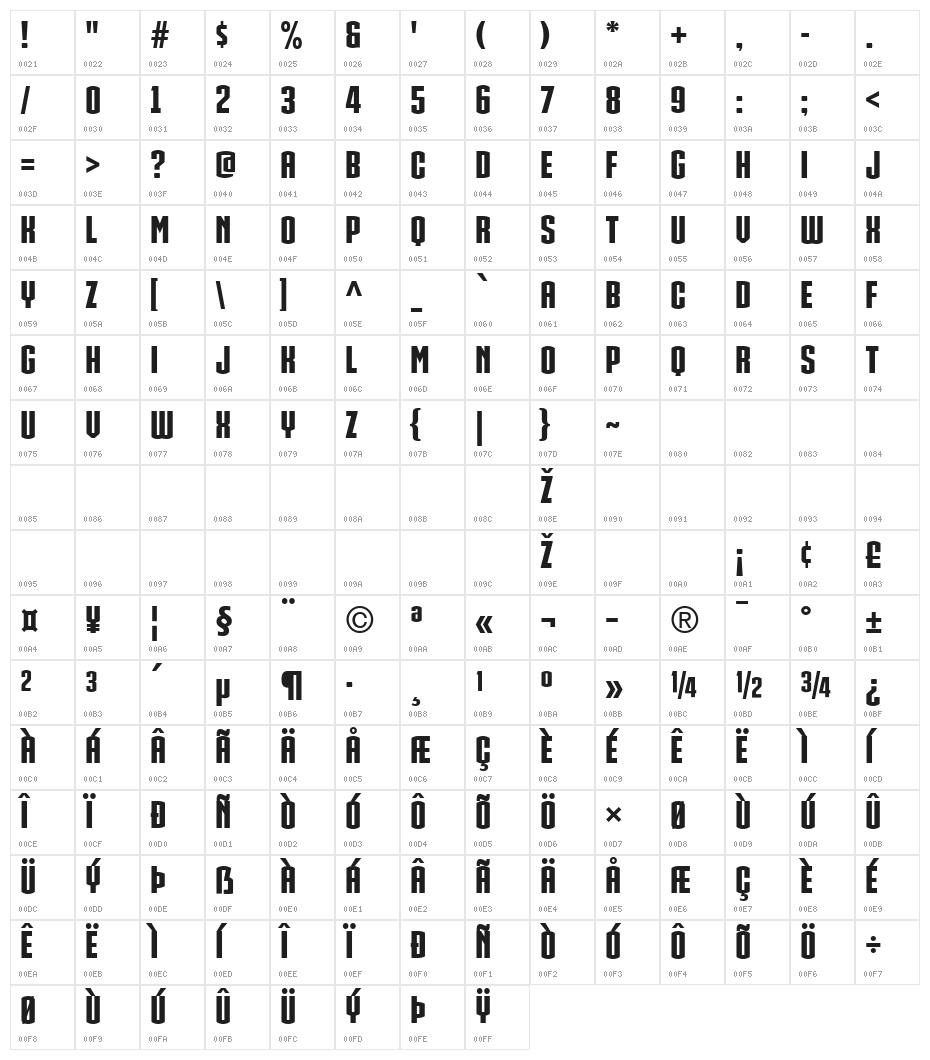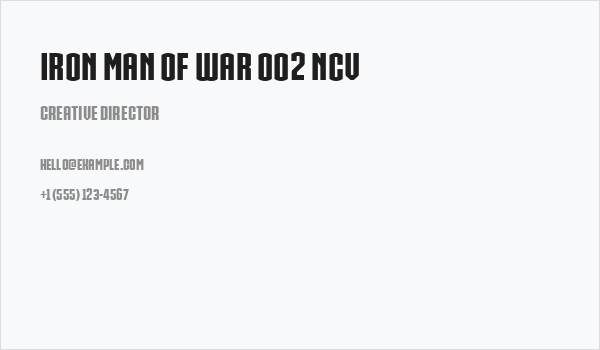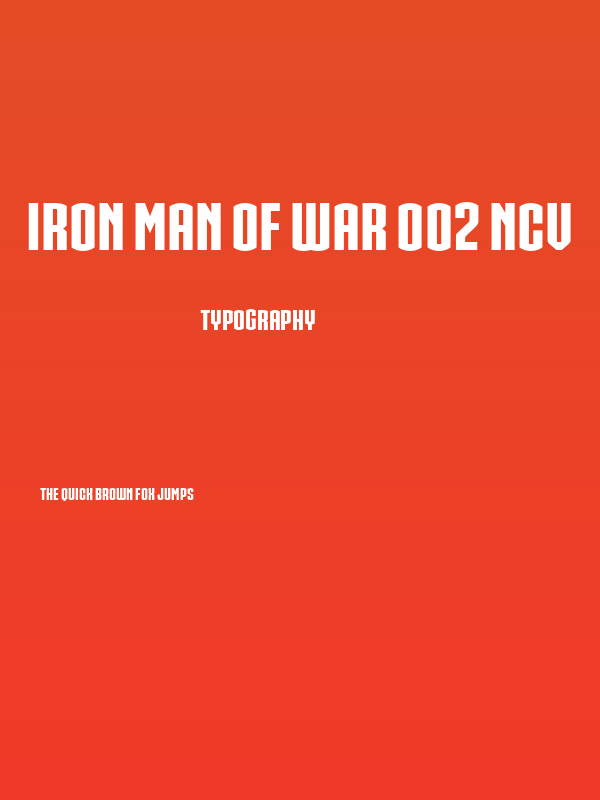
IRON MAN OF WAR 002 NCV Font
IRON MAN OF WAR 002 NCV Description
This font features a bold and robust design with strong geometric shapes and a commanding presence. The uppercase letters are tall and imposing, with consistent stroke widths that convey a sense of strength and stability. The numerals and special characters maintain this boldness, ensuring uniformity across all characters. The font's design is reminiscent of industrial and military aesthetics, making it suitable for projects that require a powerful and assertive look. The spacing between characters is tight, enhancing the compact and solid feel of the text.
| Proposed Projects | Ideal for posters, logos, branding, and any project needing a bold, impactful statement. |